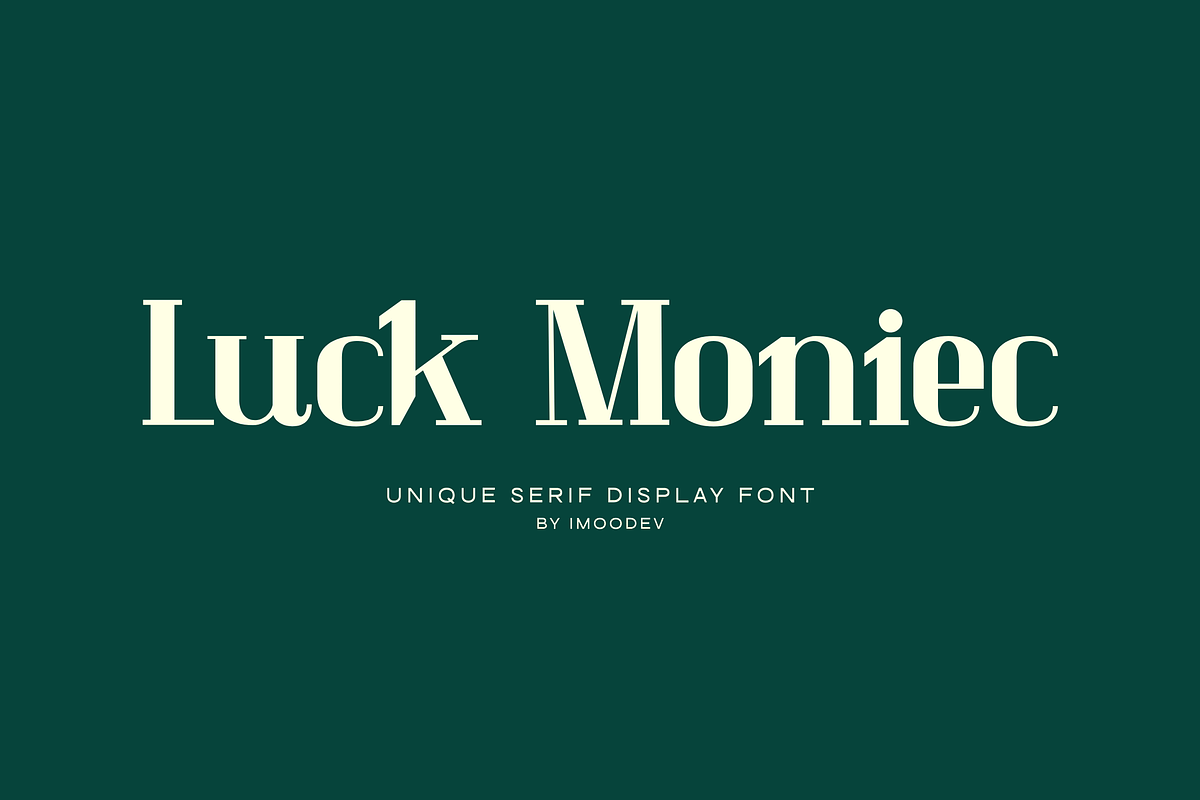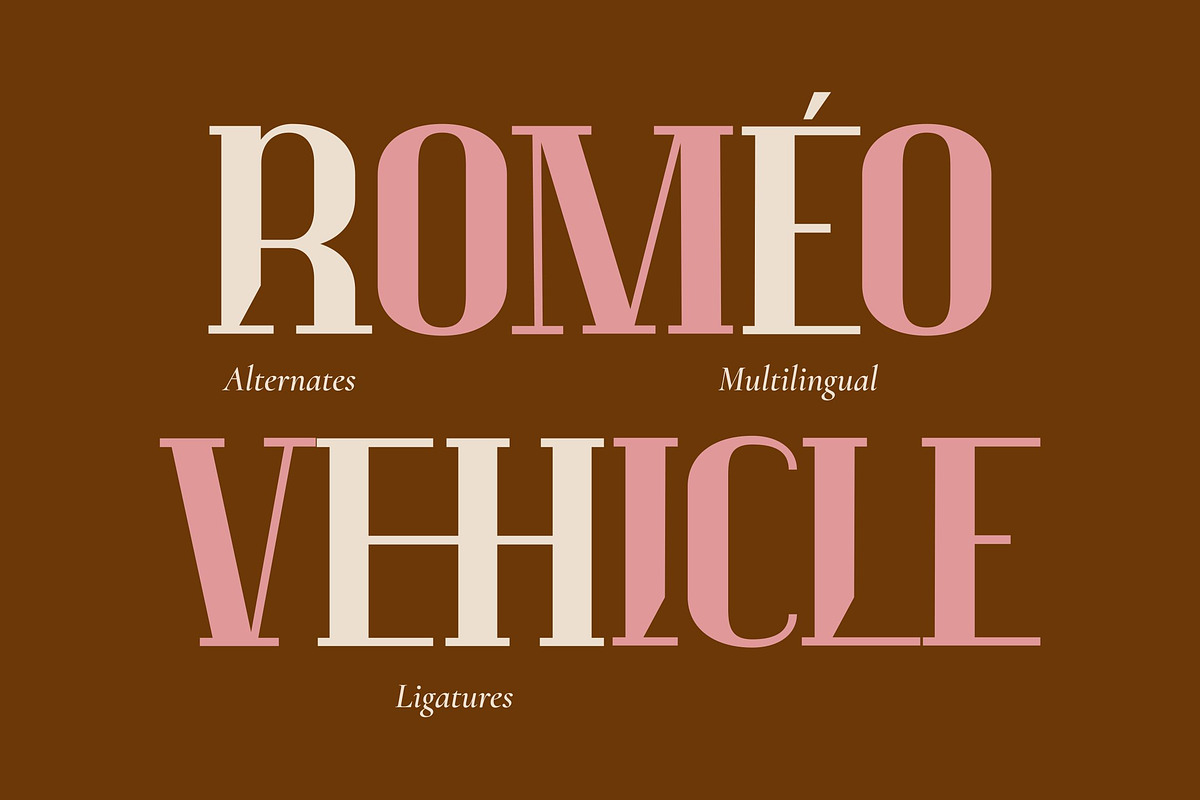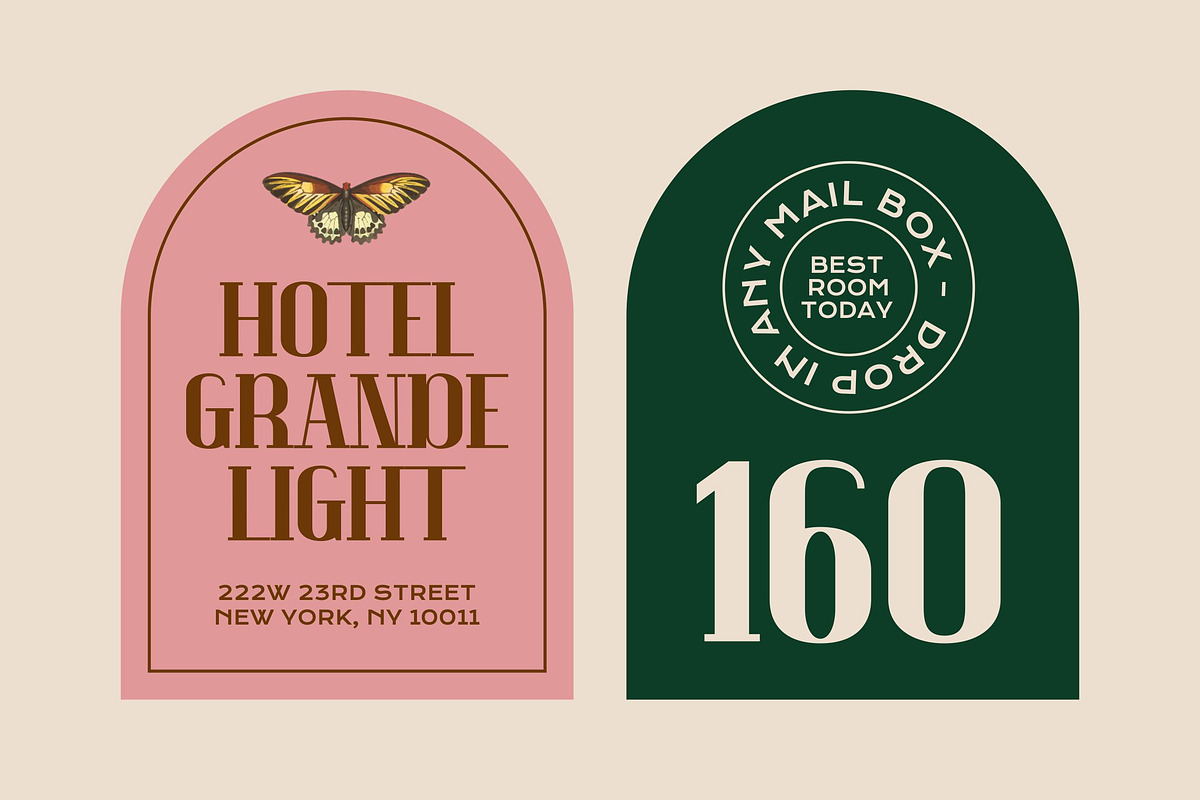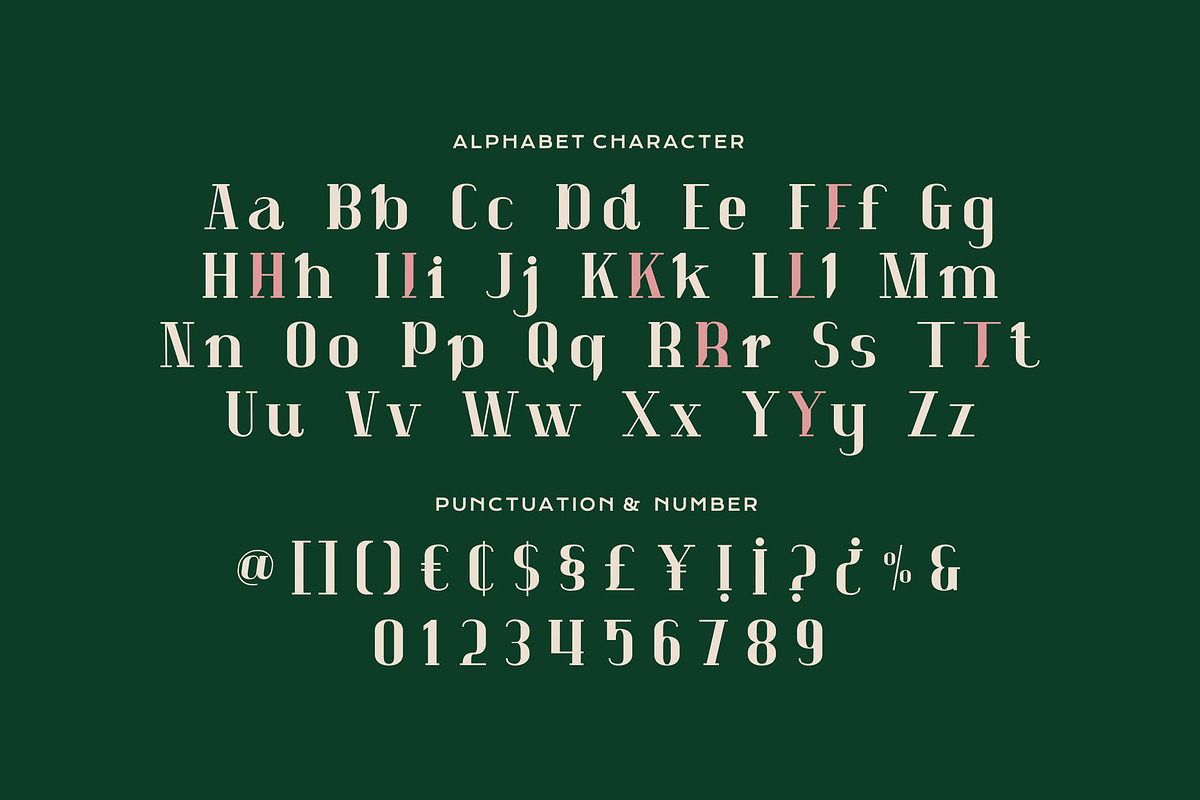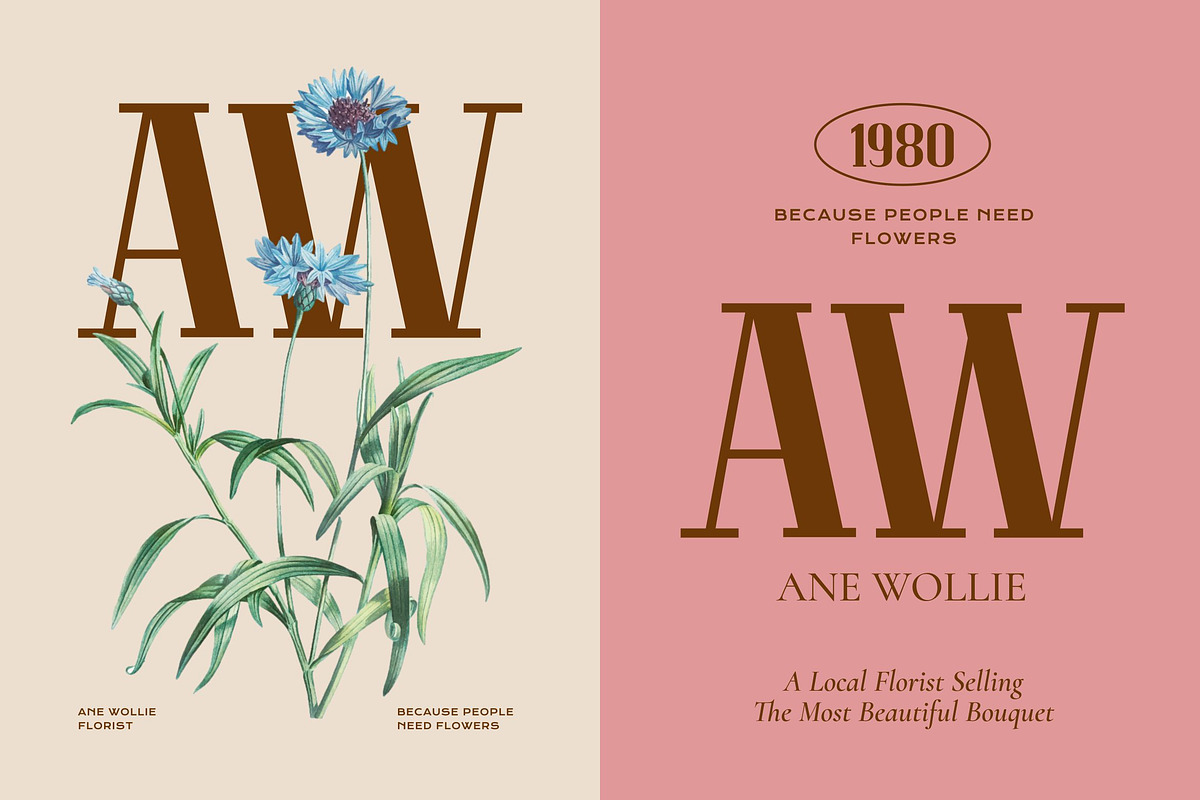
Luck Moniec - Modern Editorial Serif
Luck Moniec is a unique serif display font inspiration from classical Roman serif structure while integrating modern aesthetic elements, creating a visual harmony that's both timeless and contemporary.
This font perfect for luxury branding, editorial headlines, logo, romantic floristry posters, hotel signage, packaging, and wedding invitations.
Uppercase and Lowecase Characters.
Numerals and Punctuations.
Alternates and Ligatures.
Multilingual Support.